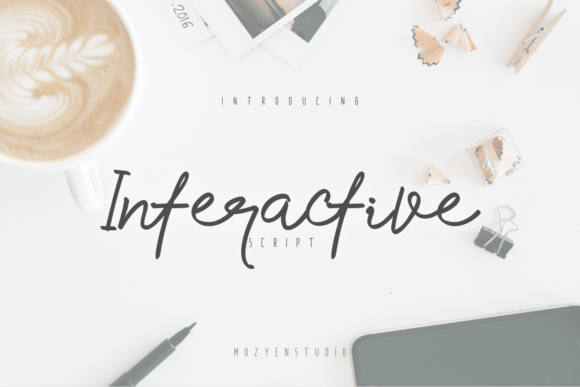
Dive into the realm of visual allure with Interactive, a script font that epitomizes elegance and sophistication. Crafted with meticulous attention to detail, Interactive seamlessly blends the fluidity of handwritten strokes with the allure of timeless calligraphy. Its dynamic curves and graceful terminals evoke a sense of artistry, making it the perfect choice for those seeking a touch of creative flair in their designs.
Awaken your imagination and unleash your creativity with Interactive. Let its versatile charm take center stage in your next photography project. Capture the essence of cherished moments, elevate the allure of landscapes, or add a touch of personal flair to family portraits. With Interactive, your photographs will transcend the ordinary and become captivating works of art, captivating your audience's attention and leaving a lasting impression.
Experience the harmonious fusion of aesthetics and functionality with Interactive. Its meticulously crafted characters ensure effortless readability, while its distinct style adds an unmistakable charm to any text. Whether you're crafting wedding invitations, designing logos, or creating eye-catching social media posts, Interactive will elevate your words and make them shine.
Embrace the boundless possibilities of Interactive and embark on a creative journey like no other. Its boundless versatility empowers you to express your individuality in countless ways. From elegant letterheads that exude professionalism to whimsical party invitations that ignite joy, Interactive effortlessly adapts to your creative vision. Let your imagination run wild and discover the endless wonders that await you with this extraordinary script font.